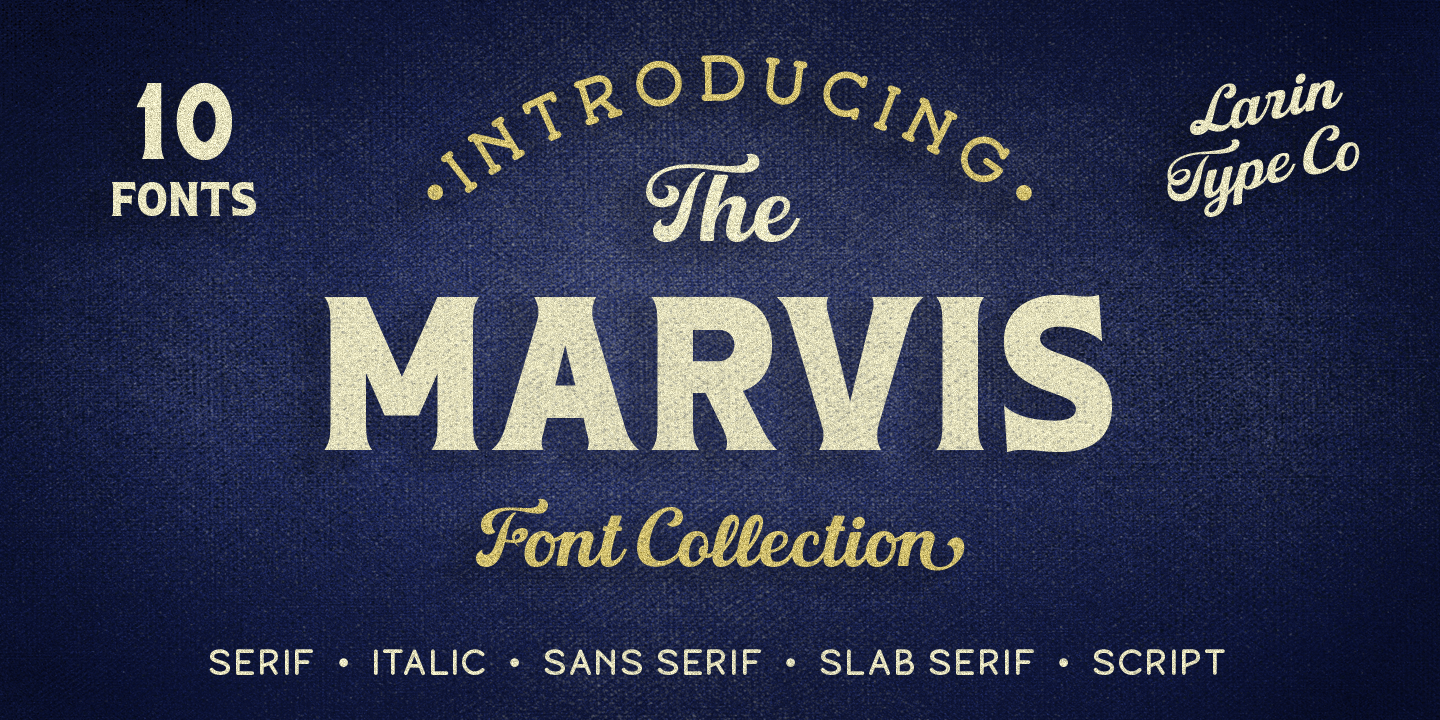
Marvis Font Free Download – Elegant & Modern Sans-Serif Typeface
Looking for a font that effortlessly combines sophistication with versatility? Marvis Font Free Download offers a clean, contemporary sans-serif design perfect for upscale branding, minimalist websites, and professional presentations. With its balanced letterforms and excellent readability, this font adds a touch of modern elegance to any project.
Why Designers Love Marvis Font
1. Premium Aesthetic
Marvis Font's refined proportions and subtle details make it ideal for:
Luxury brand identities
High-end packaging
Fashion editorials
Corporate communications
2. Exceptional Versatility
Use Marvis Font Free Download for:
Website headers & UI design
App interfaces & digital products
Print materials & stationery
Social media graphics
3. Optimized Readability
Perfect letter spacing for both headlines and body text
Clear legibility at any size
Multiple weight options for design flexibility
Includes: Uppercase, lowercase, numerals, punctuation
Language support: Western European characters